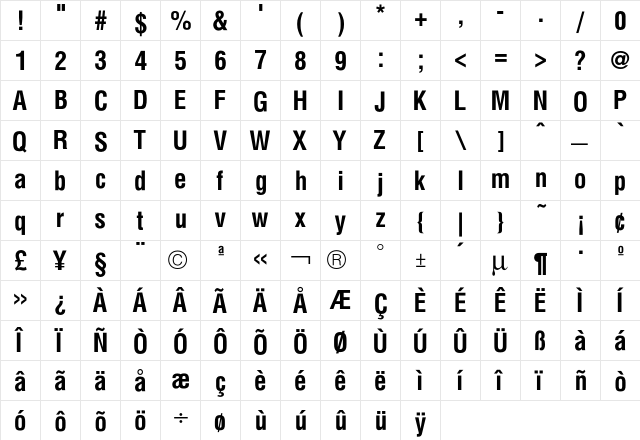
Hallmarke CondBold
Design Context for Hallmarke Typeface
Hallmarke takes a measured approach to typography — its balanced proportions and neutral character make it a reliable workhorse for both digital and print work. The heavy weight commands attention and anchors typographic hierarchies. Its narrow stance lets it pack a punch even in space-constrained designs.